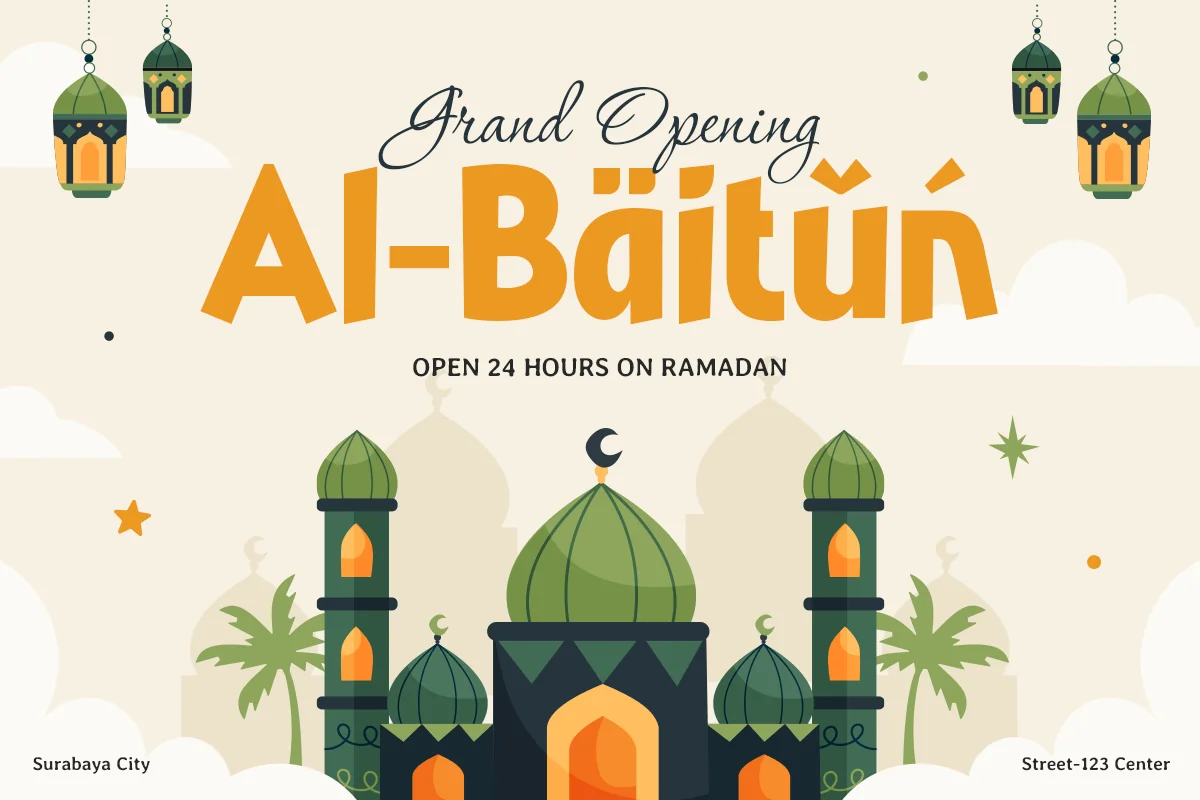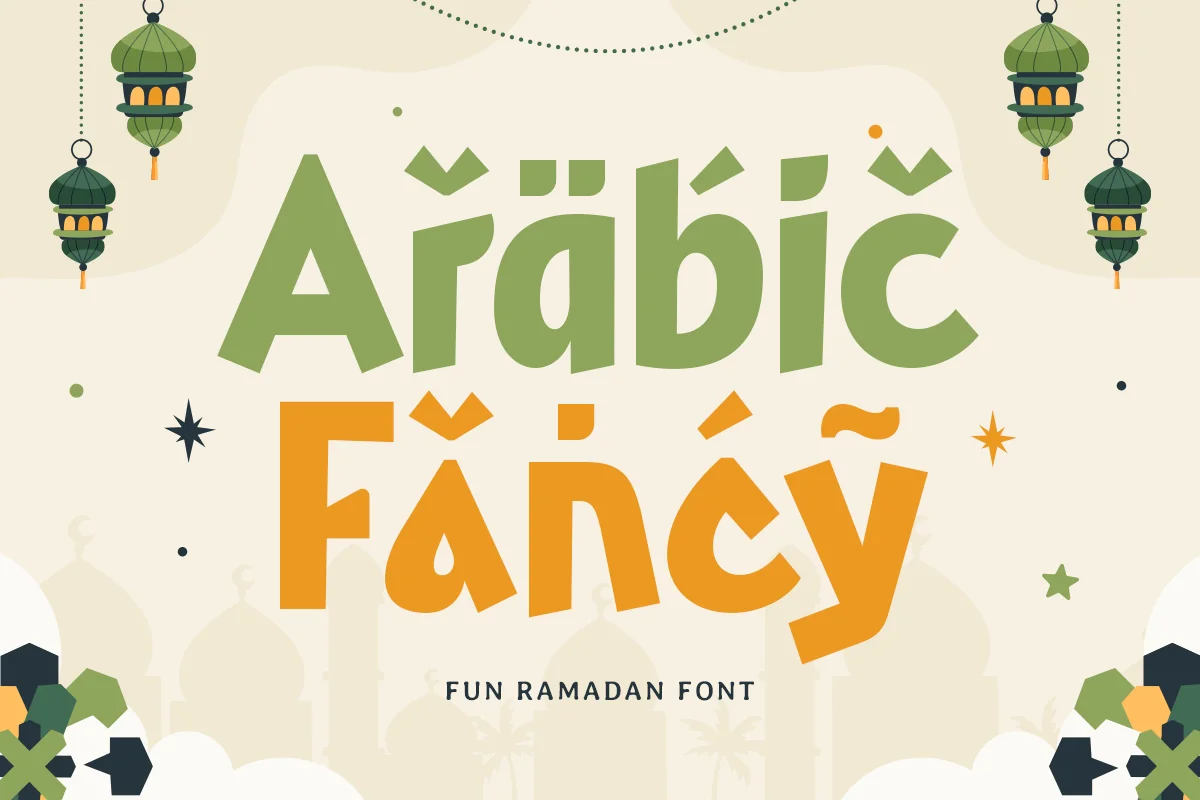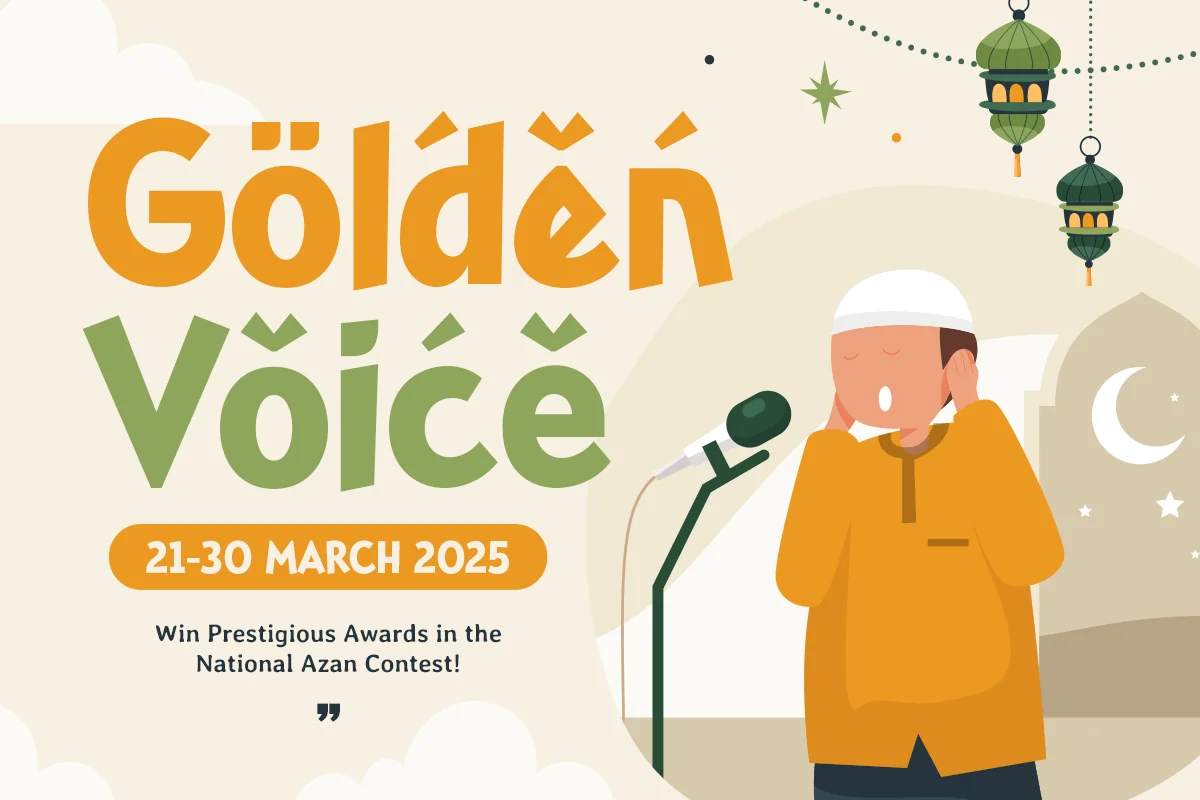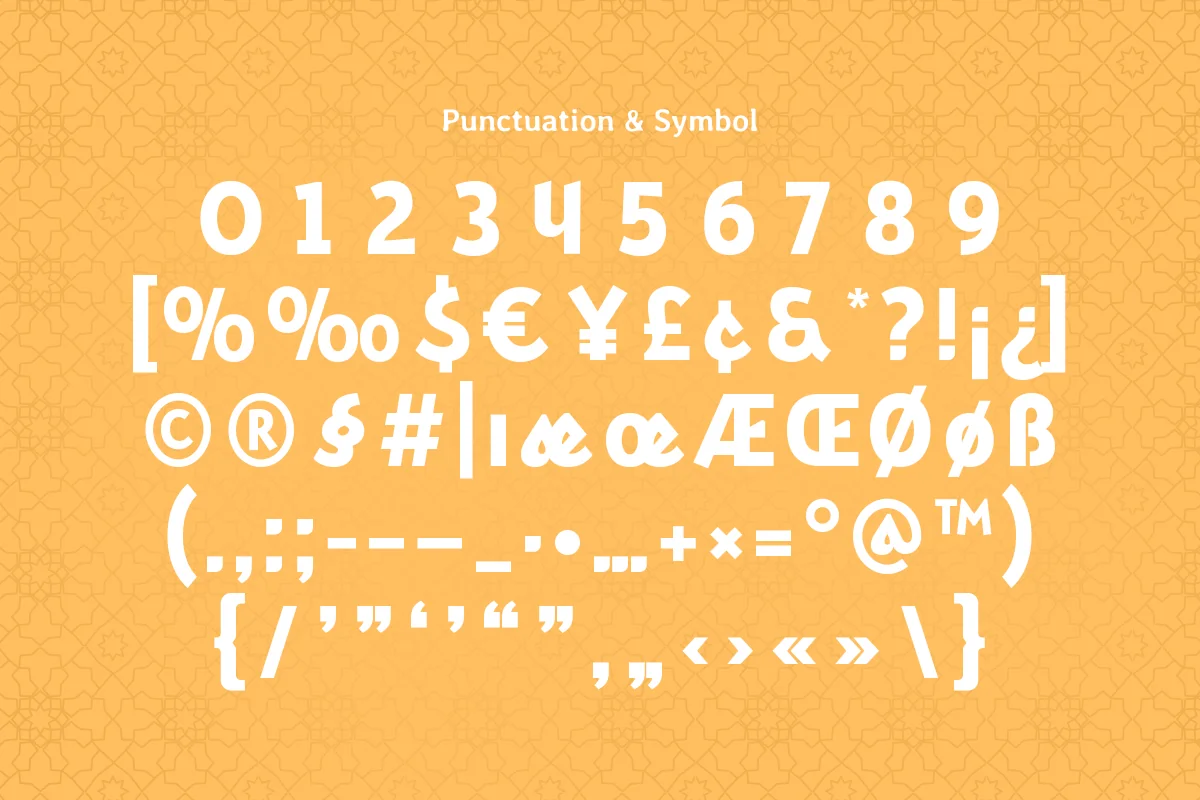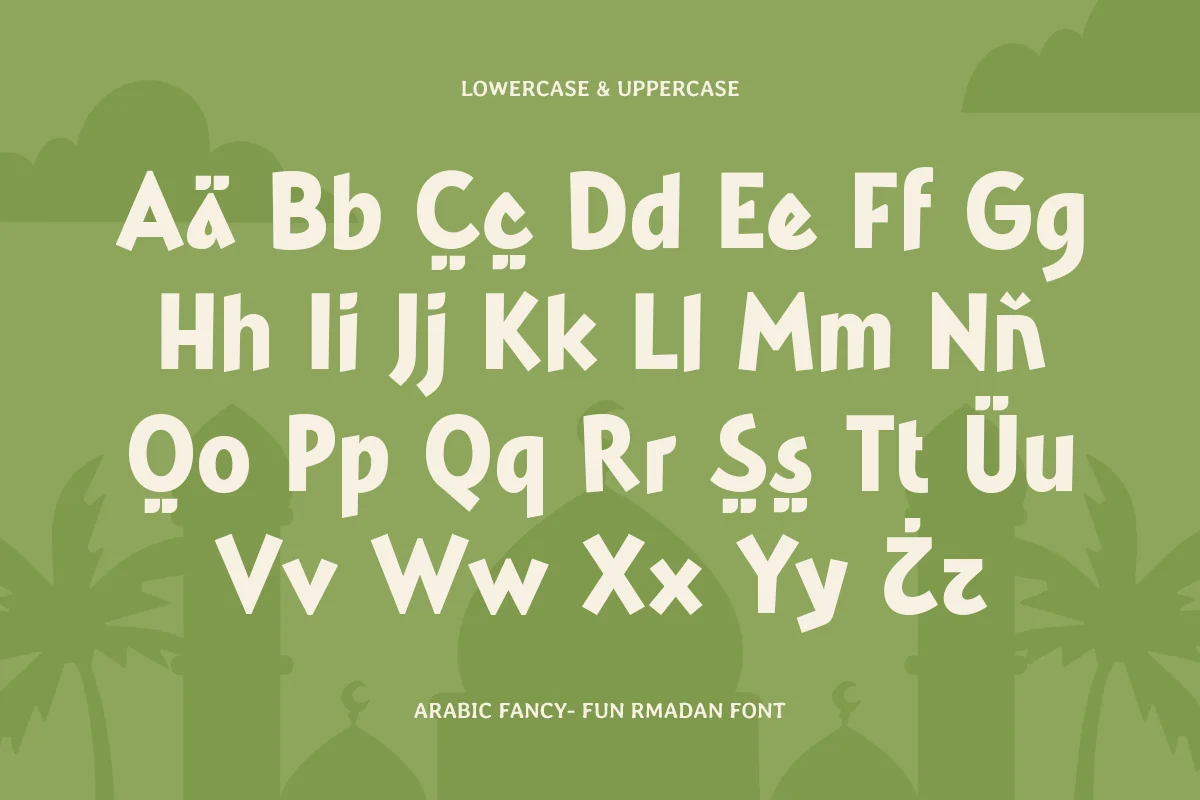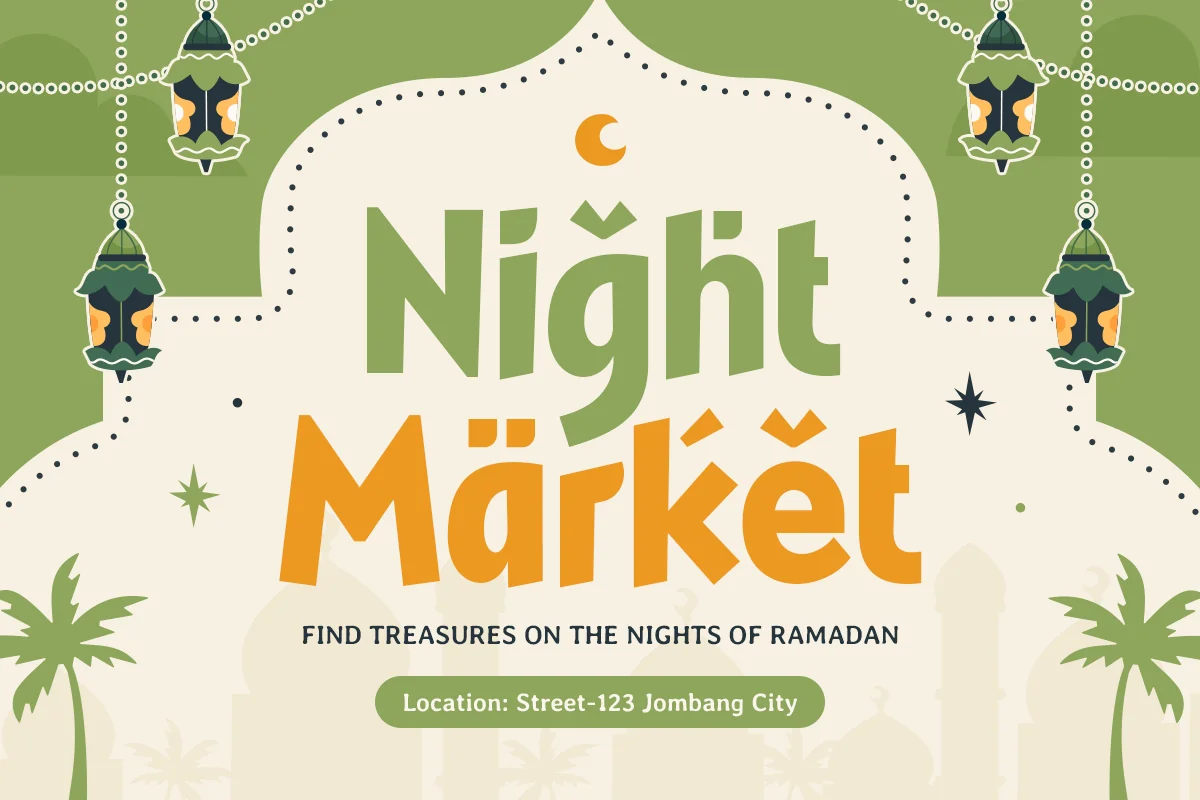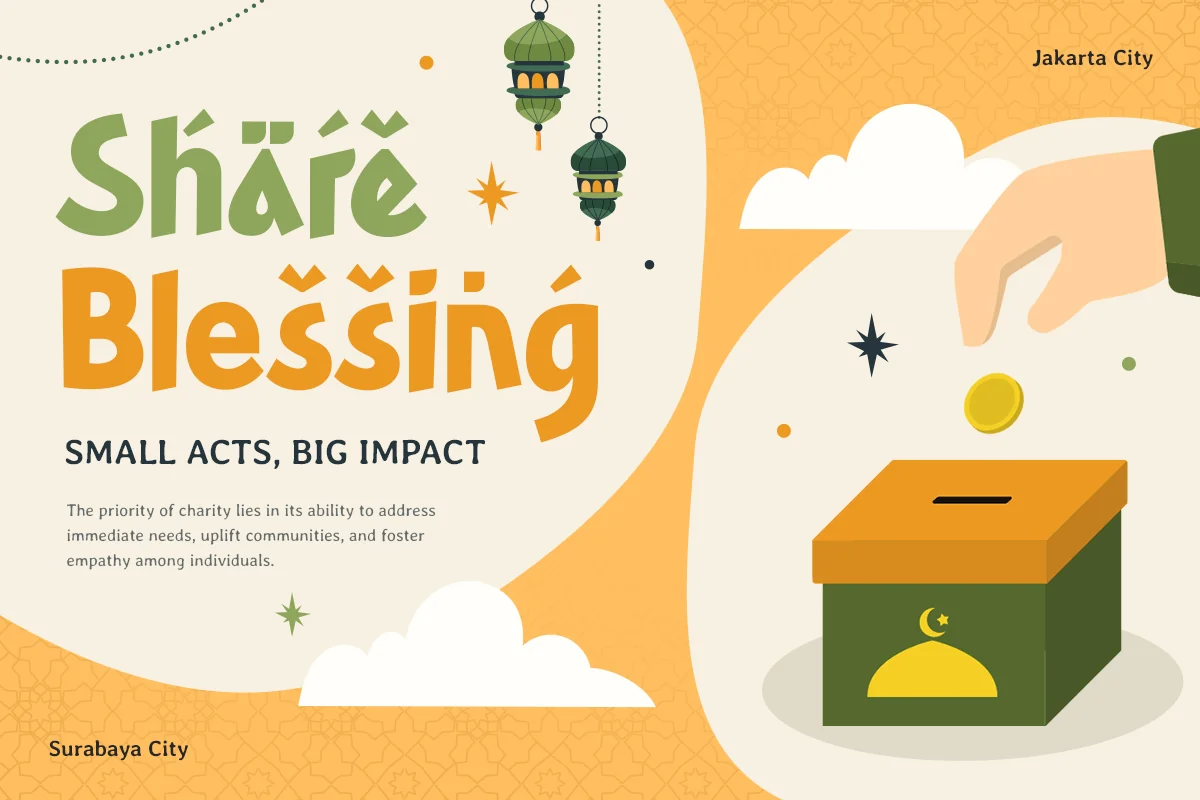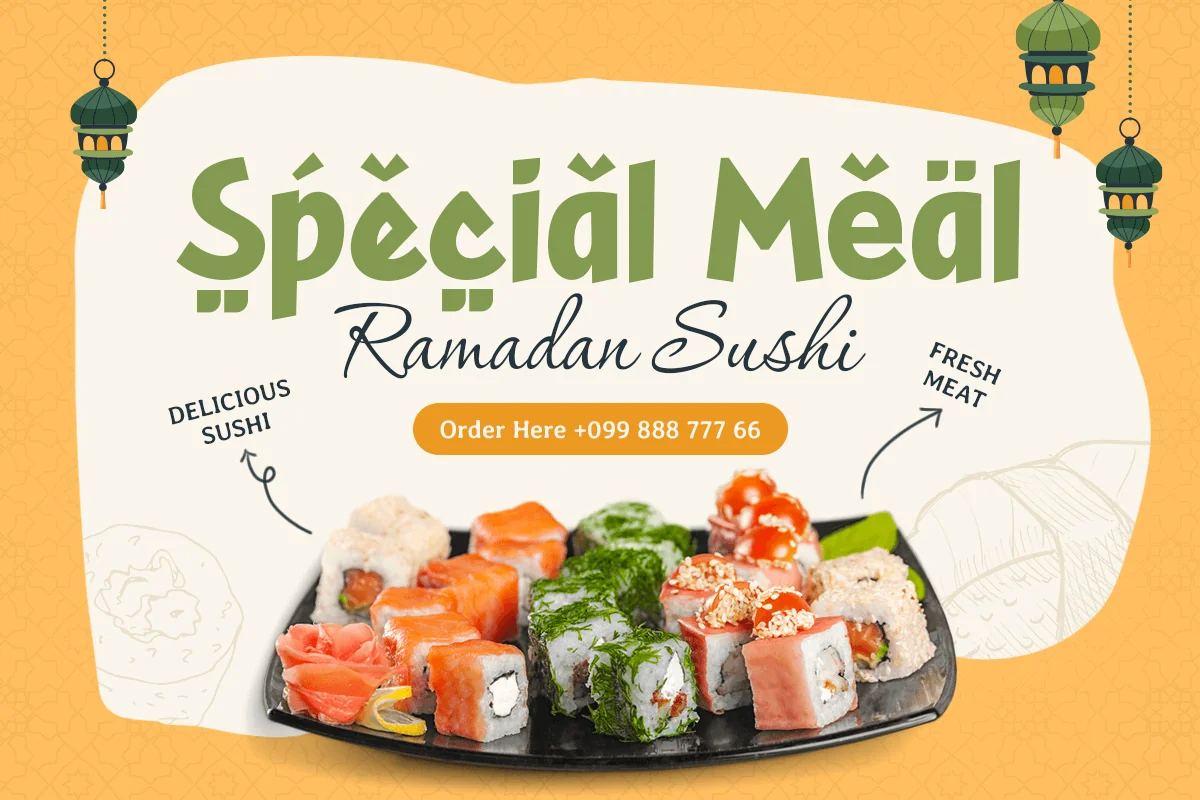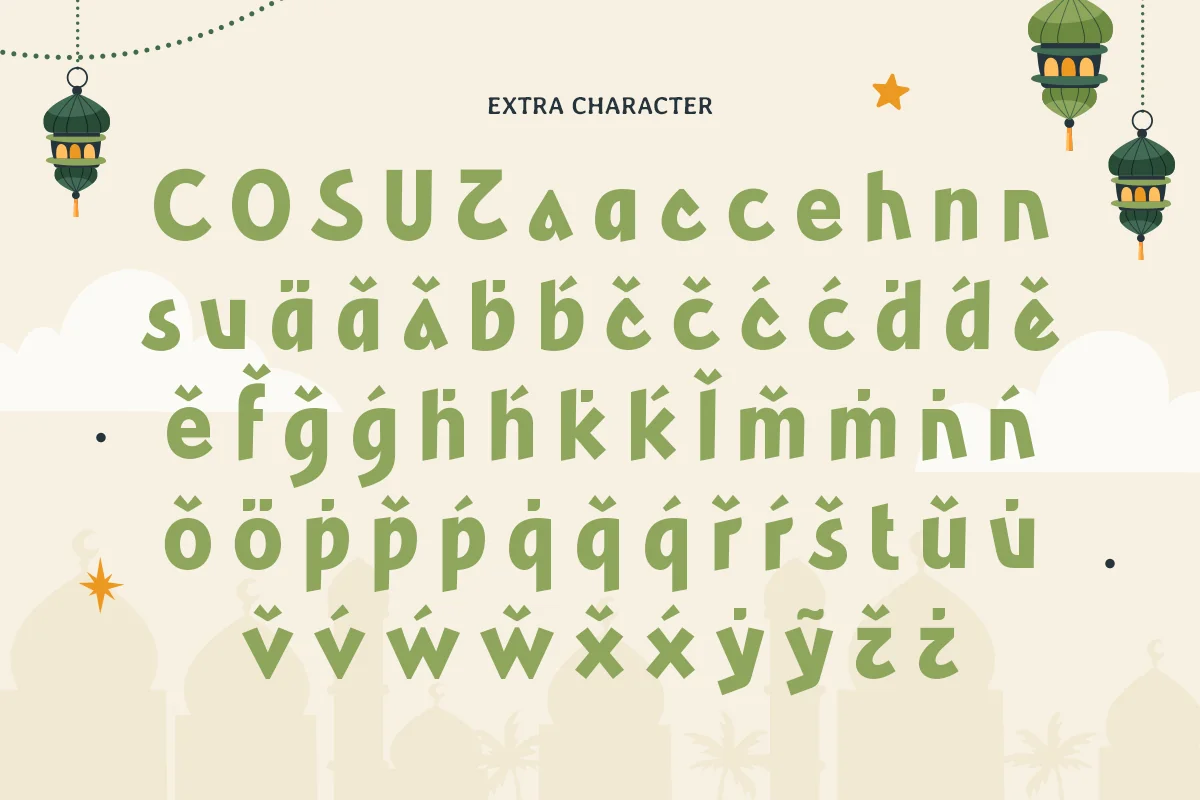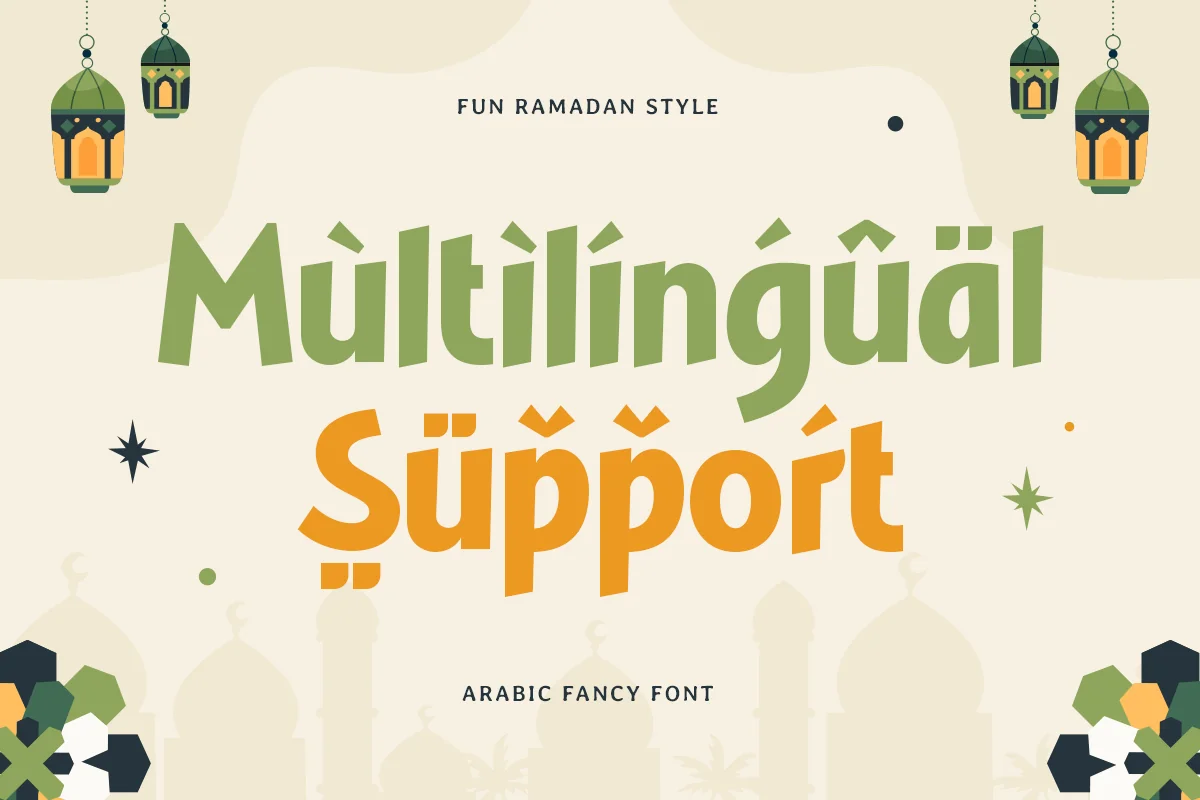
Arabic Fancy – Fun Ramadan Font
Celebrate Ramadan with Playful Elegance
Arabic Fancy is a fun Ramadan font designed to bring a festive and joyful touch to your projects. Its playful curves and decorative elements perfectly capture the spirit of celebration, making it an excellent choice for Ramadan-themed designs.
Perfect for Festive and Creative Designs
This font is ideal for greeting cards, invitations, posters, banners, and social media content during Ramadan. Arabic Fancy’s unique style ensures your message stands out with charm and creativity.
A Blend of Tradition and Whimsy
Arabic Fancy combines the elegance of traditional Arabic typography with a modern, playful twist. It’s crafted to inspire and elevate every design, adding a unique personality to your creations.
Arabic Fancy – Fun Ramadan Font Features:
- Alternates Characters Ready
Multilingual Characters available for:
Afrikaans, Albanian, Asu, Basque, Bemba, Bena, Breton, Chiga, Cornish, Dutch, English, Estonian, Filipino, Finnish, Friulian, Galician, German, Gusii, Indonesian, Irish, Italian, Kabuverdianu, Kalenjin, Kinyarwanda, Luo, Luxembourgish, Luyia, Machame, Makhuwa-Meetto, Makonde, Malagasy, Manx, Morisyen, North Ndebele, Nyankole, Oromo, Portuguese, Quechua, Romansh, Rombo, Rundi, Rwa, Samburu, Sango, Sangu, Scottish Gaelic, Sena, Shambala, Shona, Soga, Somali, Spanish, Swahili, Swedish, Swiss.